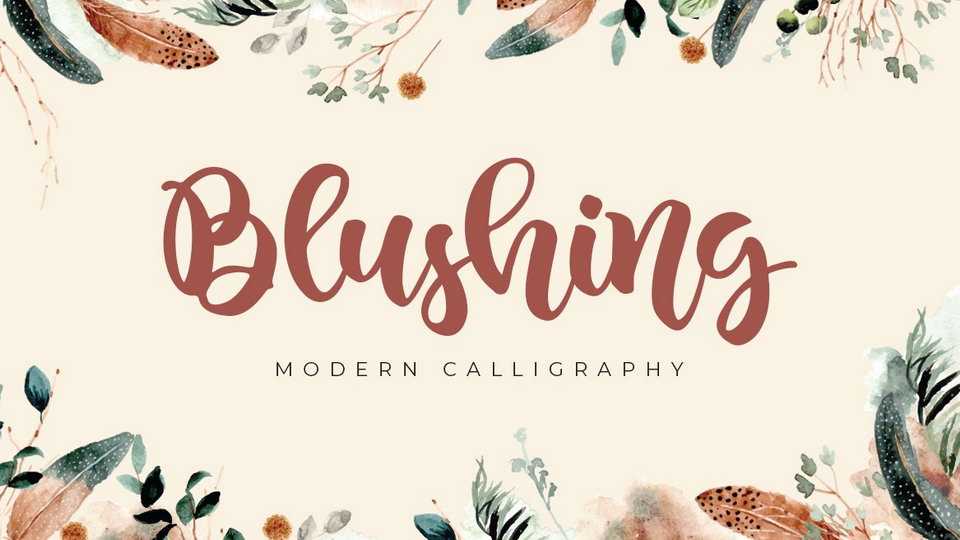
Download Blushing font, a beautiful handwritten typeface, masterfully designed to become a true favorite. Blushing maintains its classy calligraphic influences while feeling contemporary and fresh.
Designer: Agniardi